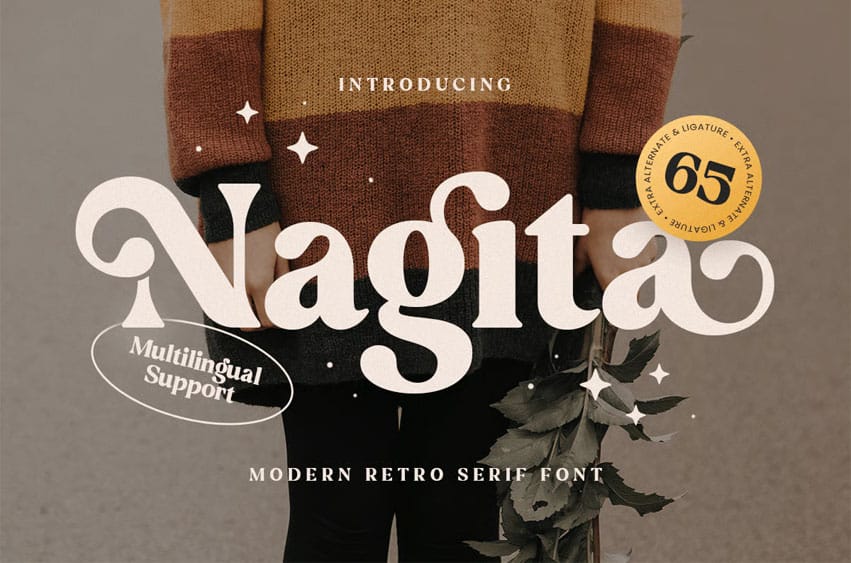
Nagita Font Modern Bold Fancy Retro Serif Font Nagita is a modern bold serif font with fancy retro character, designed to deliver strong personality, vintage charm, and eye-catching style. Featuring bold strokes, decorative serif details, and a nostalgic yet modern feel, Nagita is perfect for branding, logos, headlines, posters, packaging, editorials, and retro-inspired creative projects.
Crafted to blend retro aesthetics with modern boldness, Nagita offers excellent readability while maintaining a playful and expressive identity. Its fancy serif style makes it ideal for fashion brands, lifestyle products, café branding, music posters, and designers seeking a font that feels classic, stylish, and full of character.
Nagita – Modern Bold Fancy Retro Serif Font Features:
- Modern bold serif style with fancy retro character
- Ideal for branding, logos, headlines, and posters
- Strong contrast with decorative serif details
- Perfect for vintage, bold, and expressive visual identities
Bring bold retro charm to your designs with Nagita – the modern fancy serif font made to stand out.